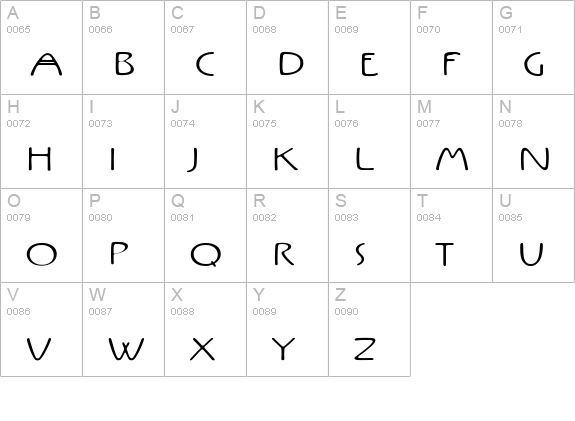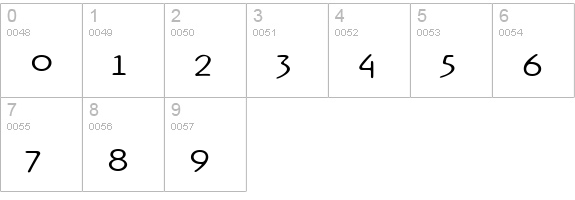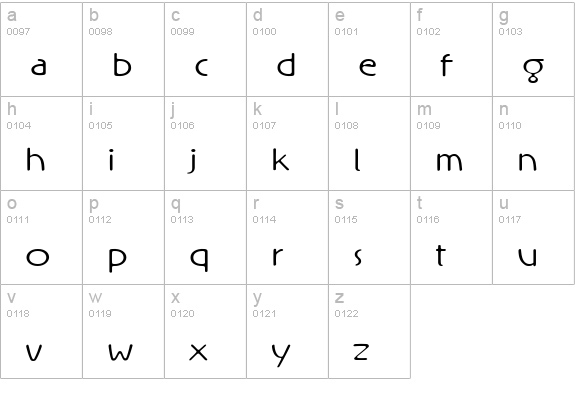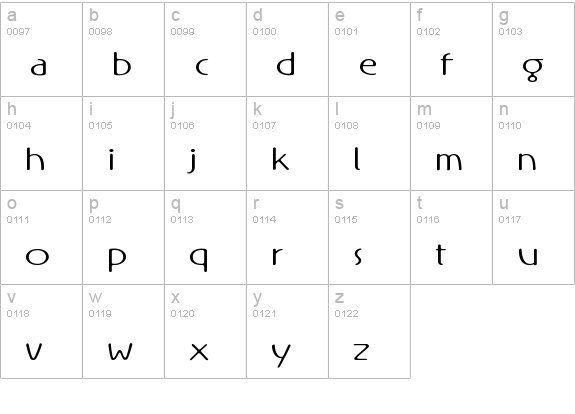
Rx-OneZero Font Details
Rx-OneZero font is a modern and sleek typeface that exudes elegance and sophistication. With its clean lines and sharp edges, this font is perfect for creating professional and polished designs. The versatility of Rx-OneZero makes it suitable for a wide range of projects, from branding and advertising to web design and print materials. What sets Rx-OneZero apart is not only its aesthetic appeal but also its accessibility. This font is freely available to download at FontsMarket.com, allowing designers and creatives to easily incorporate it into their work without any cost. Whether you're looking to elevate your branding or add a touch of refinement to your designs, Rx-OneZero is the perfect choice for achieving a polished and professional look.